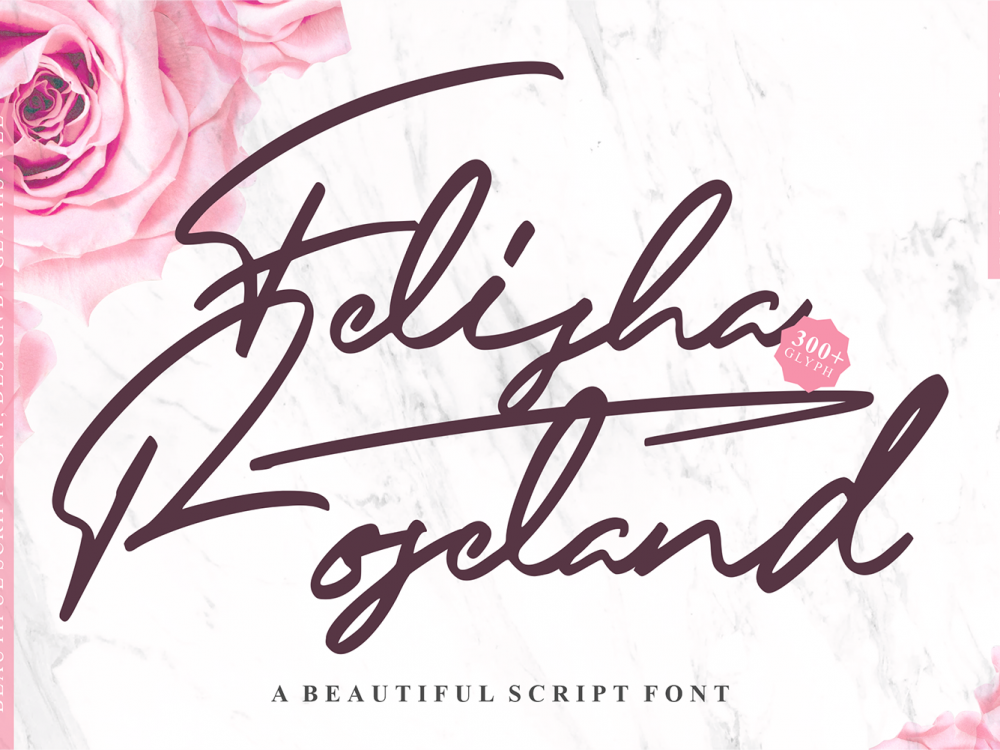
Felisha Roseland Free Font
Felisha Roseland Free Font is a smooth handwritten script with smooth curves which has an elegant and interesting style. This font is very well suited for creating various projects that require a scriptable modern handwritten font. Use this font to create memorable romantic posters, wedding invitations, greeting cards, branding, flyers, t-shirt and pillow prints, and more. If you like it don’t forget to check out the full version.